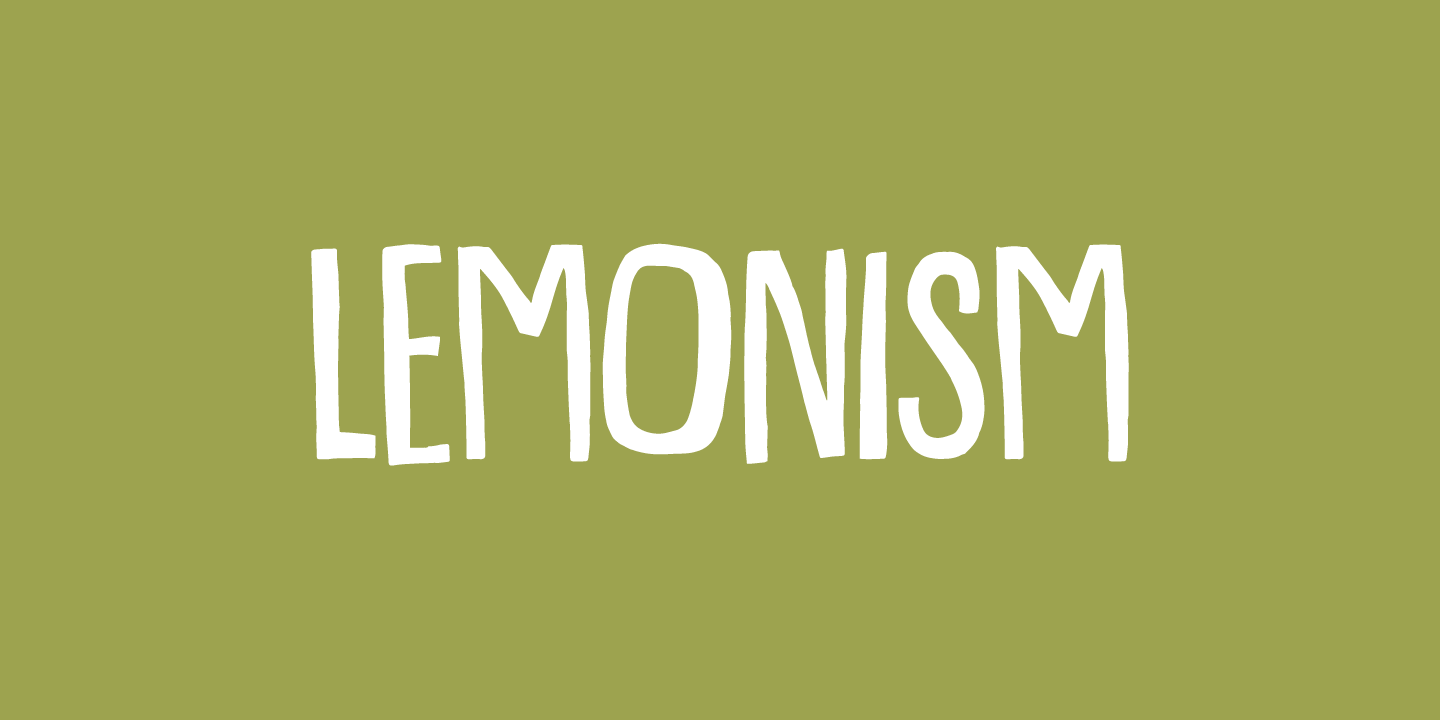
Lemonism Font excels in citrus-themed cafe branding, fresh juice bar signage, sunny summer event posters, vibrant organic market materials, cheerful vitamin supplement packaging, bright health food store graphics, energetic wellness campaigns, and refreshing beverage promotions. Its zesty character makes it perfect for projects celebrating freshness and natural vitality.
What makes Lemonism Font exciting is its invigorating ability to capture the refreshing zest and energizing spirit of fresh lemons through vibrantly crafted letterforms that burst with citrus energy and natural optimism. The zesty construction features bright curves with vitamin-packed vitality that embodies the essence of fresh sunshine and healthy living. This typeface embodies citrus freshness and natural energy, making every design feel refreshingly alive and positively energizing.
Lemonism Font family includes Regular, Bold, Light, Italic, Zest, and Fresh variations, offering designers comprehensive tools for creating vibrant citrus-inspired typographic compositions that celebrate natural refreshment and healthy living.
Energize your creative projects with the refreshing zest of Lemonism Font Free Download. This invigorating typeface brings citrus vitality to any design endeavor, whether you're developing brand identities for health-focused businesses, crafting promotional materials for wellness products, or designing graphics for fresh food companies. The font's lemon-fresh architecture and energizing presence make it essential for projects requiring natural appeal. Lemonism Font perfectly captures the essence of citrus refreshment while ensuring excellent readability across all health-focused applications. Its zesty character forms and vitamin-inspired design language make it ideal for brands seeking to communicate natural energy and healthy freshness, delivering memorable results that invigorate audiences and create lasting connections with people who appreciate natural wellness, fresh ingredients, and the uplifting power of citrus sunshine that brightens every day.